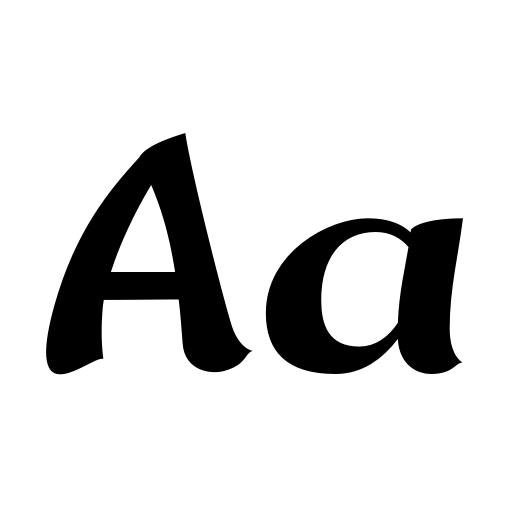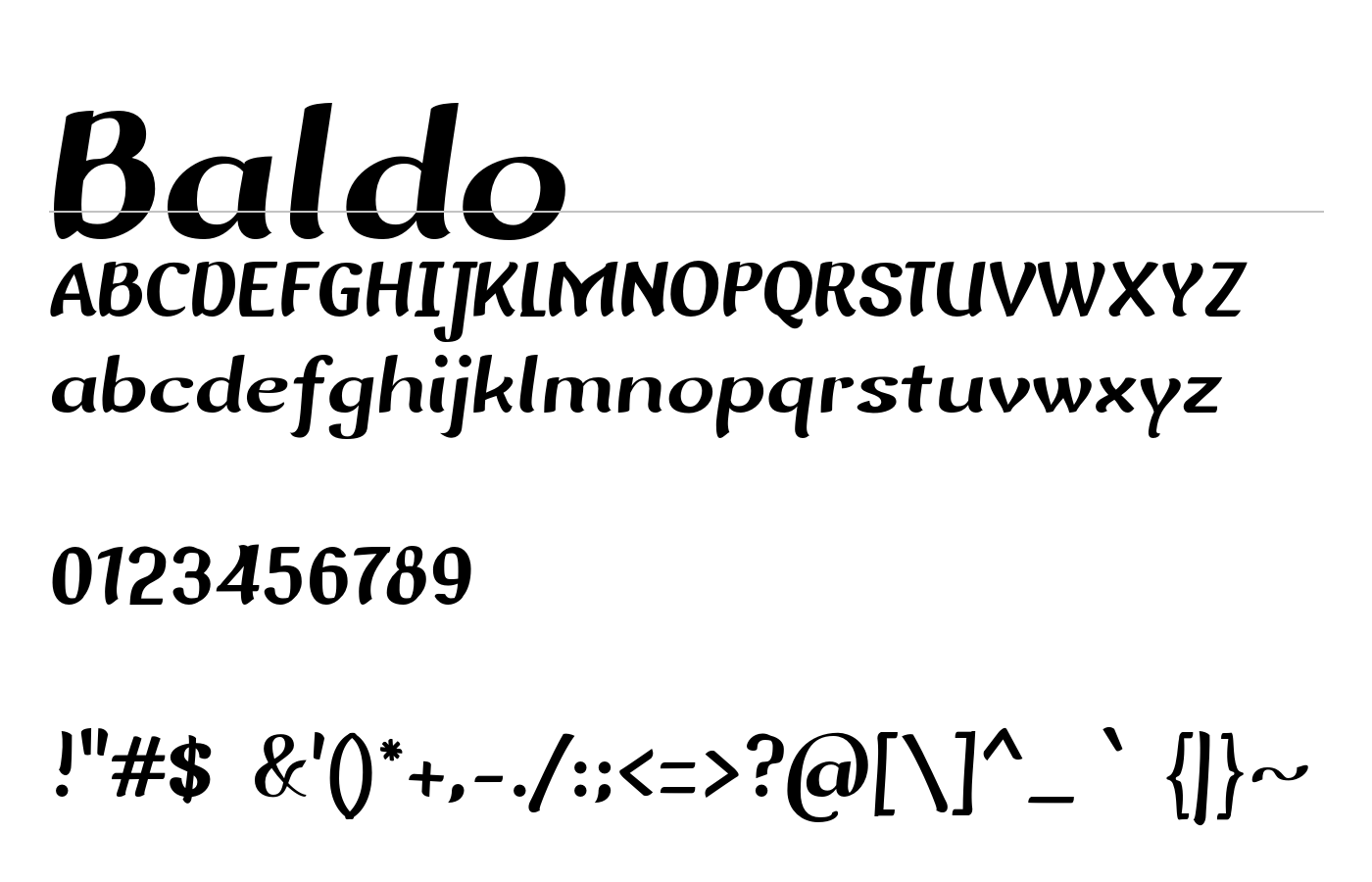
Baldo is a bold, sans serif font with a slightly condensed width and a moderate x-height that gives it a friendly yet dynamic appearance. Its stroke contrast is low, with smooth, flowing curves and subtle calligraphic details, making the font feel approachable and lively without losing clarity. Ideal for headlines, logos, and branding, Baldo brings a playful yet professional vibe perfect for creative, informal, or modern design projects.
Baldo Font
About Baldo Font
| Font family | Baldo Font |
| Designer | Diego Arturo Olaya Cortes |